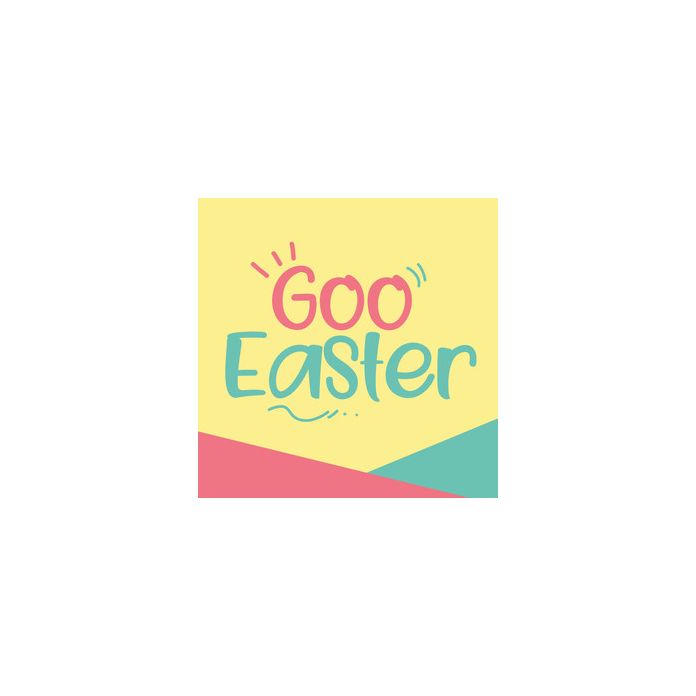
The Goo Easter is a display typeface with a cheerful theme. It is great for various designs such as: logos, branding, greeting cards, posters and any other design that needs a fun feel.